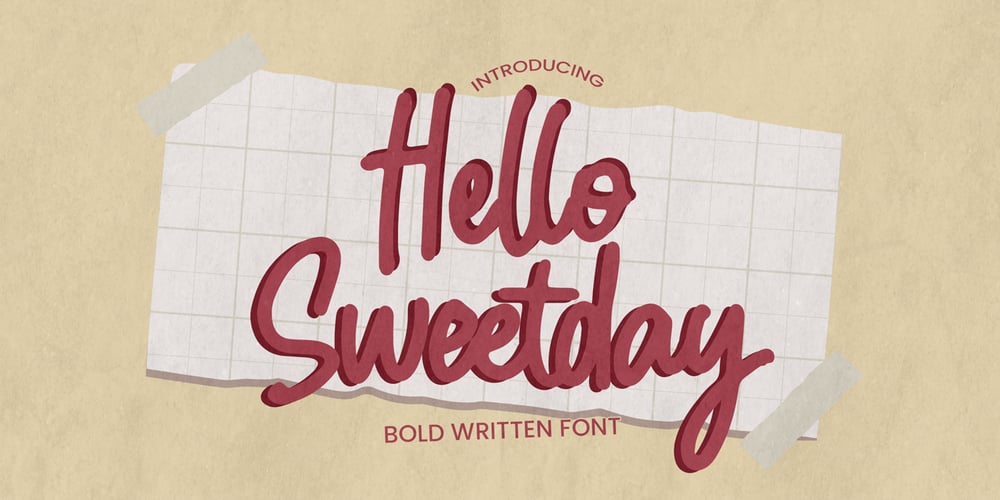
Hello Sweetday Font Family was designed by Abdul Malik Wisnu, Anang Fibriyanto and published by Gassstype. Hello Sweetday contains 1 styles and family package options. Hello Sweetday – is a Playful Craft font with a natural handwritten feel. This handmade font will make your design has a beautiful natural touch for each details. It is perfect for any design project as Invitation,logo, book cover, craft or any design purposes.